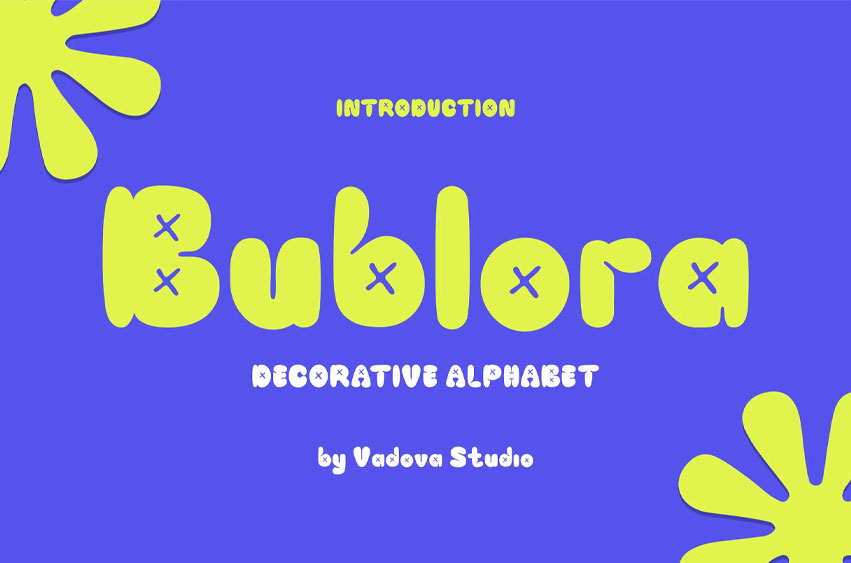
Bublora Font
Bublora Font Elevate your designs with Hendritage, a font perfect for adding elegance and style to your projects. Whether it’s for quotes, logotypes, magazine headers, or more, this versatile typeface ensures your text stands out beautifully.